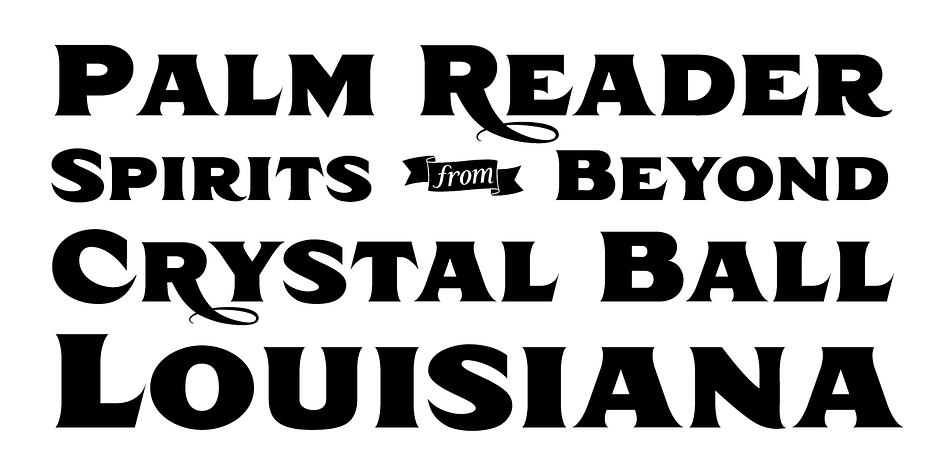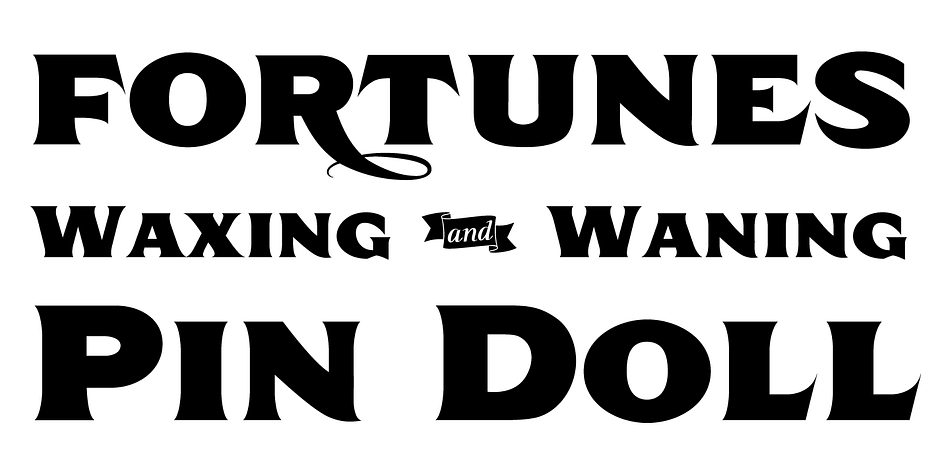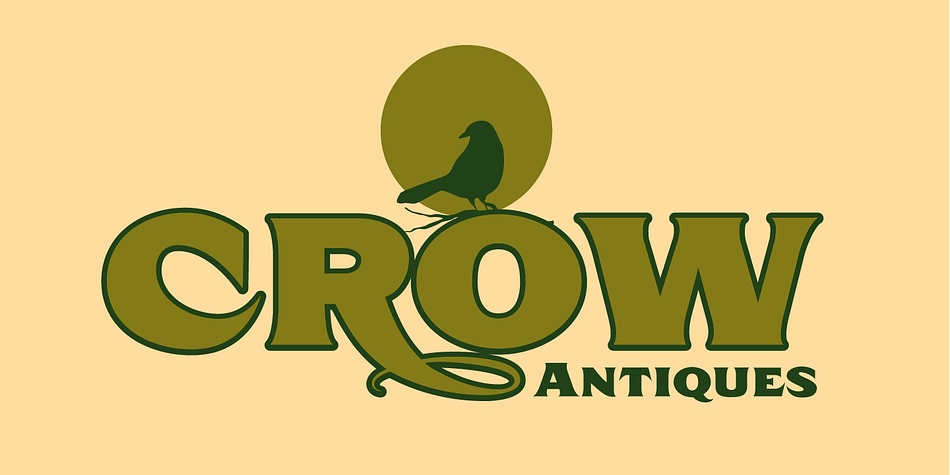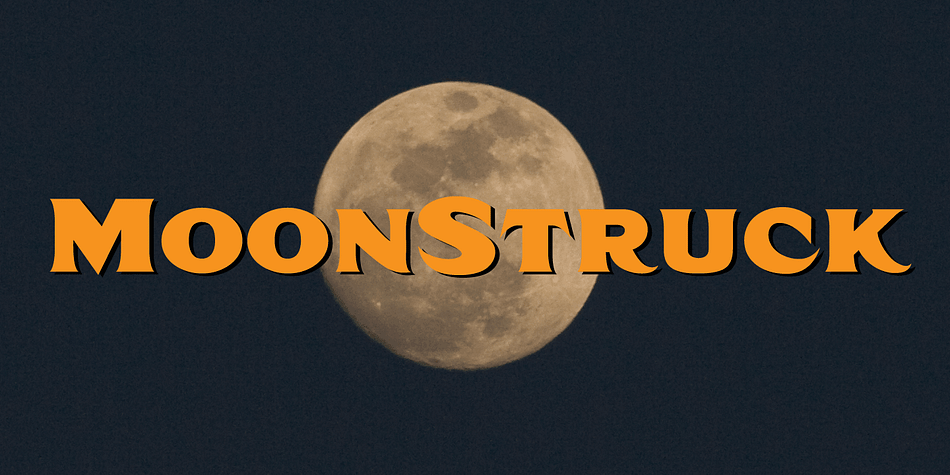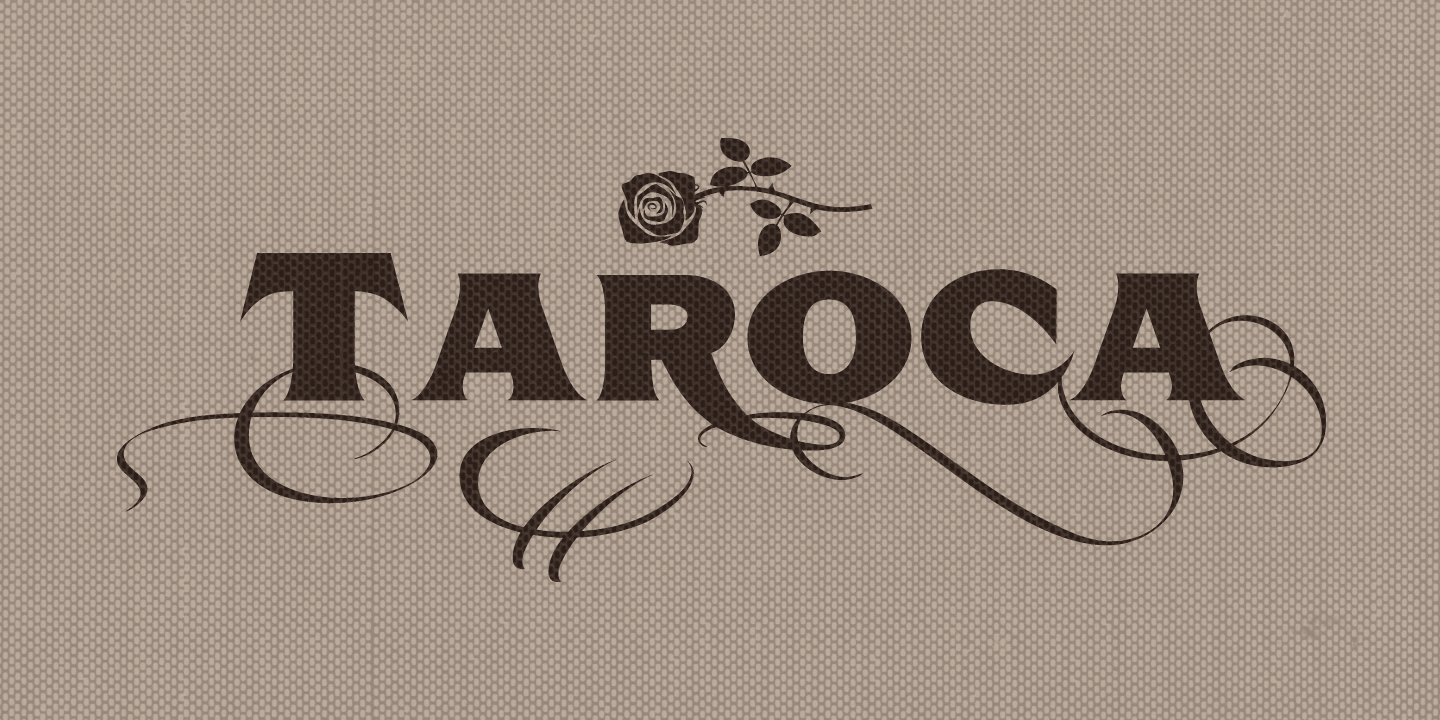
Taroca is a display font published by Jess Latham.
Taroca pronounced (Tah-Row-Kuh) is a word derived from the Italian word for Tarot.
The Taroca font invokes the spirit of the travelling carnivals from the early 1900’s. There are swash versions of: R, R small cap, Q, Q small cap, K and K small cap. Check the alternate keys file for more info or if you’re using the OT version simply select swash.
Taroca Extras is loaded with icons, word banners and flourishes.